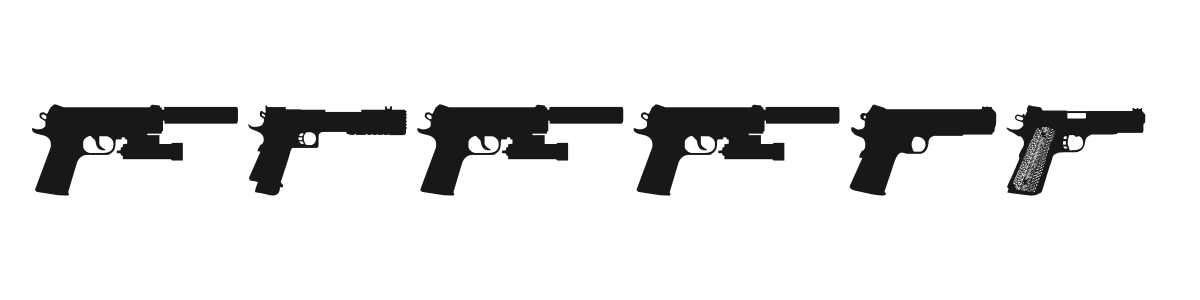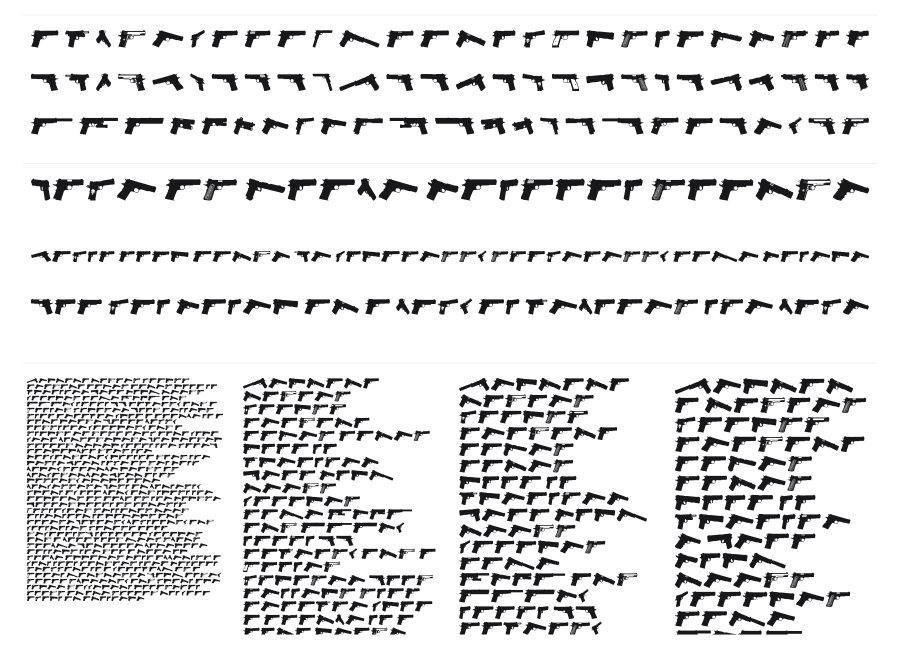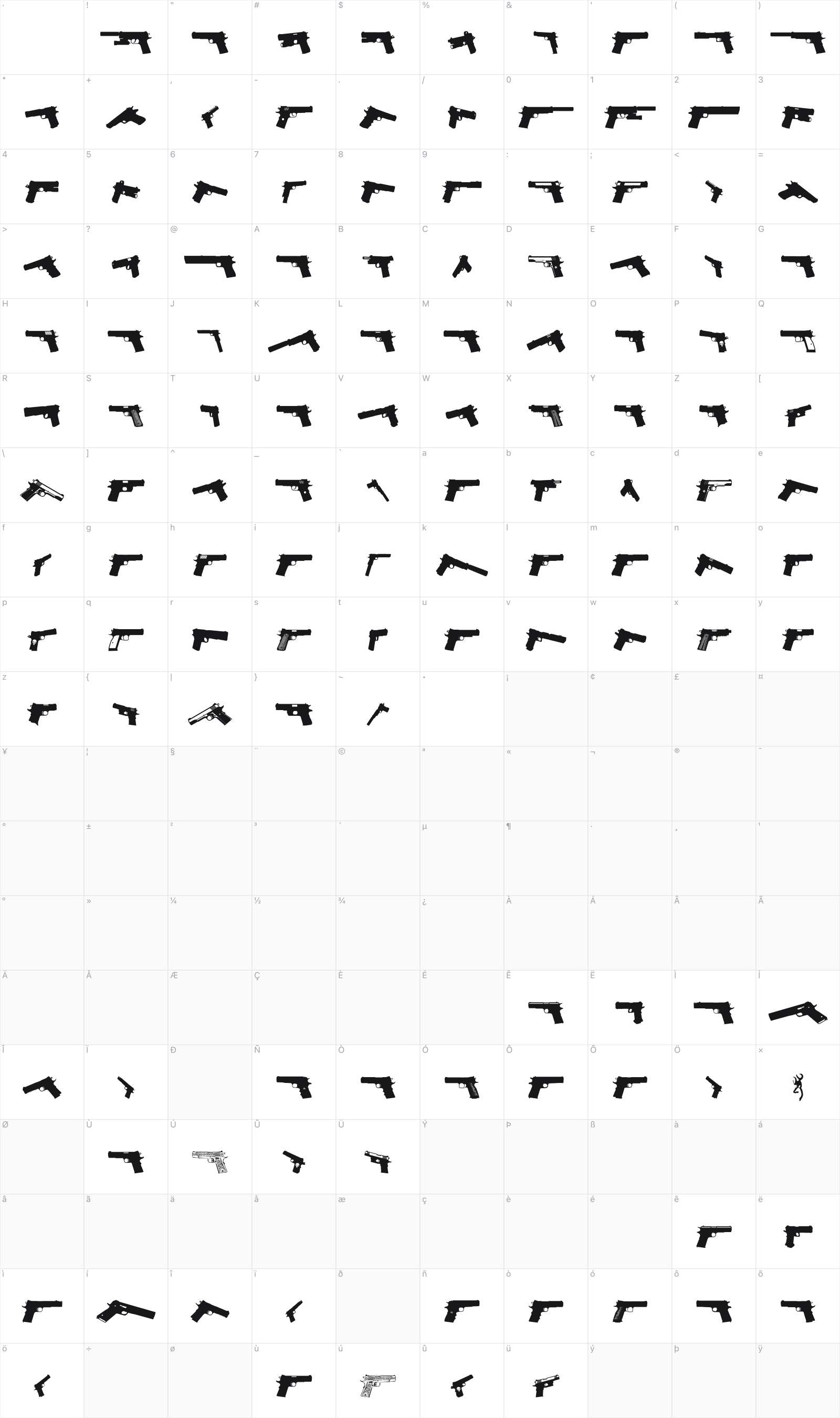
1911's
1911's is a specialty dingbat font from Iconian Fonts featuring over 60 silhouette illustrations of 1911-pattern pistols. Every glyph is a different variant, covering full-size, compact, competition, and accessorized configurations. A character map utility is essentially required to navigate the set.